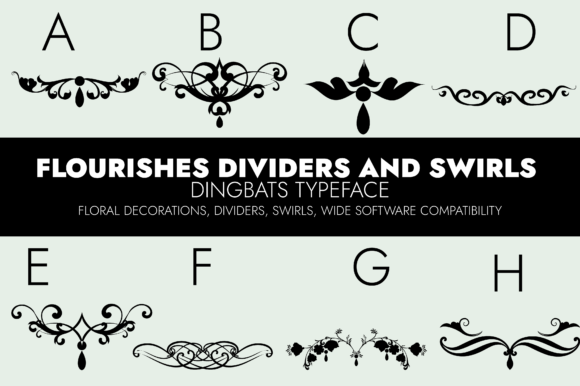
Looking for the perfect font to add a touch of elegance and charm to your designs? Look no further than "Flourishes Dividers and Swirls Font" by Minimalistartstudio! This delightful dingbats font is a must-have for anyone in search of the best font for a cute logo.
With "Flourishes Dividers and Swirls," you can effortlessly create stunning decorations that will captivate your audience. Let your imagination run wild as you embellish your designs with an array of beautiful flourishes, dividers, and swirls. This versatile font offers endless possibilities, ensuring that you'll never run out of creative ideas.
Whether you're a graphic designer, a small business owner, or an aspiring artist, this font is your secret weapon to make your designs stand out. Its intricate details and delicate lines bring a touch of sophistication to any project, instantly elevating it to a whole new level.
Imagine a logo that not only represents your brand but also evokes a sense of whimsy and playfulness. With "Flourishes Dividers and Swirls," you can achieve just that. Your logo will become an eye-catching masterpiece, leaving a lasting impression on your customers and competitors alike.
But it doesn't stop there. This font is also perfect for invitations, greeting cards, posters, and so much more. Add a touch of flair to your wedding invitations or make your holiday cards truly memorable with the help of these enchanting elements. The possibilities are endless, limited only by your imagination.
Don't settle for ordinary when you can have extraordinary. Let "Flourishes Dividers and Swirls" be your go-to font for all your design needs. It's time to unleash your creativity and leave a lasting impression with this captivating font.